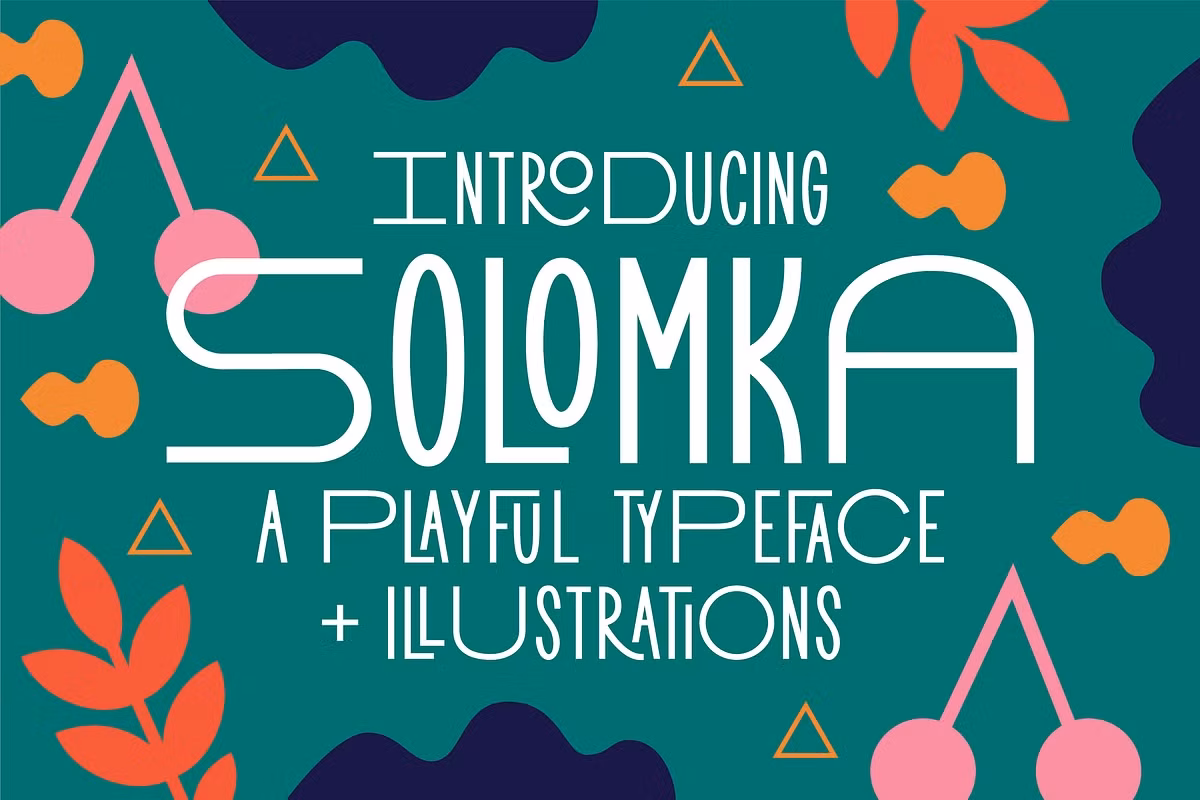
Solomka - Sans Condensed Typeface Free Download is a modern and sleek sans-serif font designed with condensed proportions and clean, sharp lines. This font is perfect for projects where space is limited but readability and style are essential. It's ideal for headlines, posters, branding, and any design that requires compact and bold typography.
The condensed design of Solomka allows you to fit more text into a small space without sacrificing legibility, making it an excellent choice for both print and digital media. Whether you're creating a sleek website, designing a product label, or crafting dynamic promotional materials, Solomka brings a modern and professional touch to your typography.